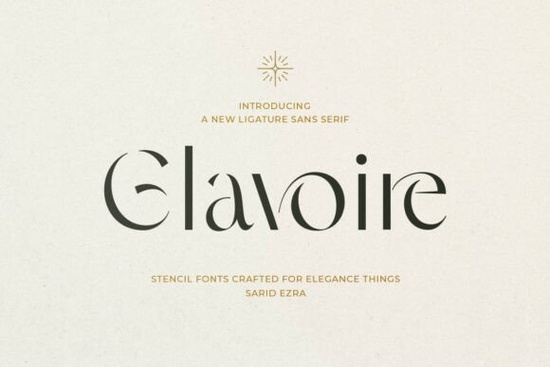
When it comes to choosing a font that embodies both modern elegance and artistic flair, the Glavoire Font stands out. This stunning ligature sans serif is perfect for designers, crafters, and small businesses looking to add a touch of sophistication to their projects.
Why Choose Glavoire Font?
Glavoire is a typeface that redefines what it means to be elegant. It combines the clean, structured lines of a contemporary sans serif with the delicate, artistic touches of stencil cuts. The result is a font that feels both fresh and timeless, making it ideal for a wide range of creative applications.
Perfect for Luxury Branding
One of the standout features of Glavoire is its high-fashion aesthetic. Whether you're designing a logo for a luxury brand, creating an editorial layout for a high-end magazine, or crafting packaging for a premium product, Glavoire's unique, flowing ligatures and strategic negative space make every headline a piece of high-contrast art. Its rhythmic letterforms add a sense of movement and grace, turning even the simplest text into something truly special.
Versatile Use Cases
While Glavoire shines in luxury branding, its versatility makes it a great choice for other creative projects as well. Here are some ways you can use Glavoire:
- Luxury Branding: Create logos, business cards, and stationery that exude elegance and refinement.
- Editorial Layouts: Design magazine covers, article headlines, and section titles that catch the eye and set the tone for your content.
- Perfume Packaging: Add a touch of class to perfume bottles, boxes, and promotional materials.
- Boutique Signage: Craft signage for boutiques, salons, and other upscale retail spaces that reflects the high quality of your offerings.
Comparing Glavoire with Other Sans Serif Fonts
If you're familiar with other popular sans serif fonts like Sirage and Brighter, you might be wondering how Glavoire compares. While each font has its own unique character, here’s a quick comparison:
- Sirage Font: Sirage, available here, is known for its geometric shapes and minimalistic design. It's a great choice if you prefer a more straightforward, modern look.
- Brighter Font: Brighter, which you can find here, offers a friendly and approachable feel with its rounded edges and playful style. It’s perfect for more casual, upbeat designs.
- Glavoire Font: Glavoire, found here, stands out with its sophisticated ligatures and high-fashion appeal. It’s the go-to choice when you need to add a touch of elegance and refinement to your project.
Tips for Using Glavoire Effectively
To get the most out of Glavoire, consider these tips:
- Use for Headlines and Titles: Glavoire works best for larger, more prominent text. Use it for headlines, titles, and other key elements that need to stand out.
- Pair with Simpler Fonts: For body text and longer paragraphs, pair Glavoire with a simpler, more readable font. This will help maintain readability while still showcasing the elegance of Glavoire.
- Experiment with Ligatures: Glavoire’s unique ligatures can add a lot of character to your designs. Play around with different combinations to see what looks best for your project.
- Consider the Context: Make sure the overall design and context of your project align with the high-end, sophisticated feel of Glavoire. It’s not the best choice for casual or informal projects.
Final Thoughts
Glavoire Font is a versatile and elegant choice for anyone looking to add a touch of sophistication to their designs. Whether you’re working on luxury branding, editorial layouts, or boutique signage, Glavoire’s unique ligatures and high-fashion aesthetic make it a top pick. Remember to use it effectively by pairing it with simpler fonts and considering the context of your project.
- Start experimenting with different ligatures and design elements to see how they enhance your project.